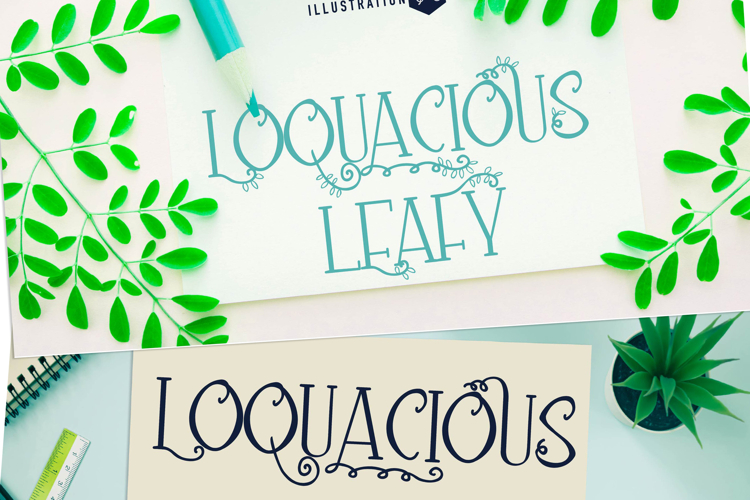
Loquacious Leafy Font Family
This hand-crafted font is a whimsical, hand-written all cap print. The uppercase features extra flourishes and the lowercase is more basic. One family member sports leaves throughout.